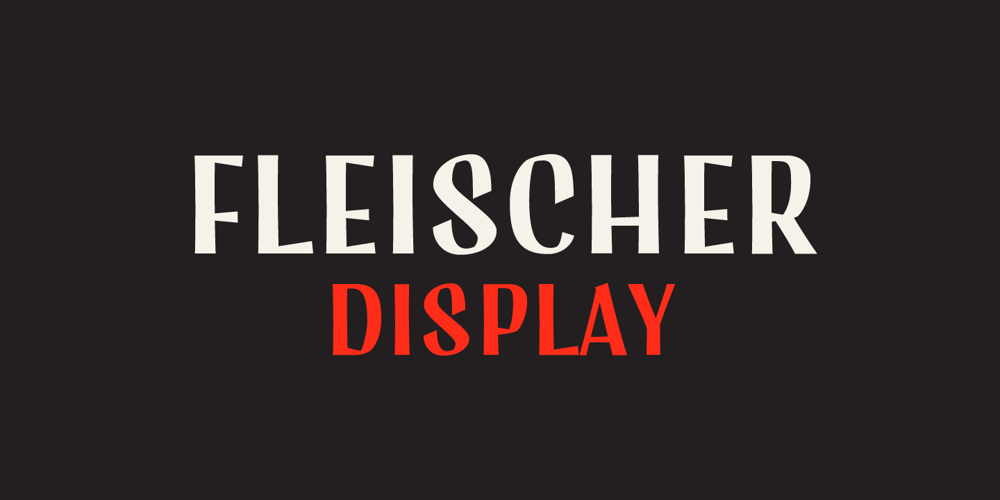
Fleischer Display Font Family was designed by Lewis McGuffie and published by Lewis McGuffie Type. Fleischer Display contains 1 styles and family package options. Fleischer is a rough and playful display typeface good for headlines and posters. The face is based on historical letterforms combined with energetic 20th century pulp-style lettering. Fleischer comes with caps and small caps plus West, Central and East European language support.